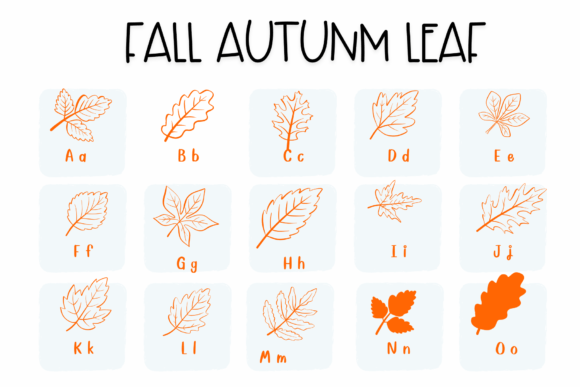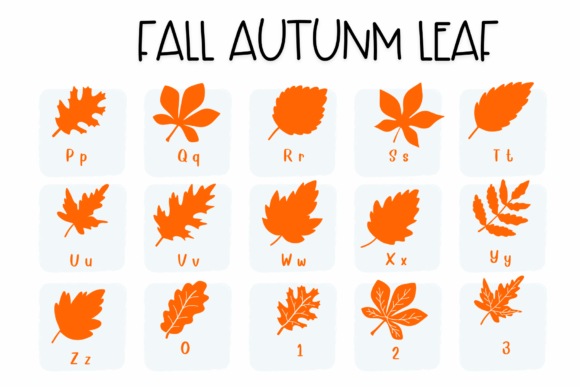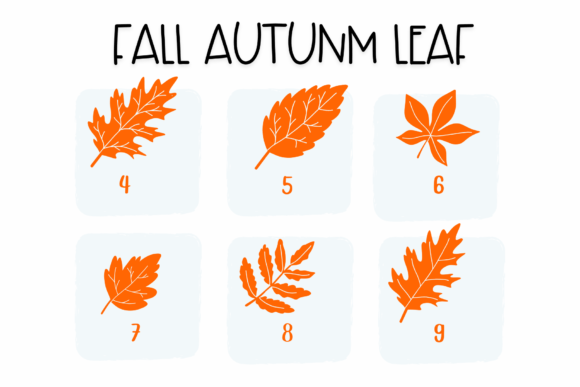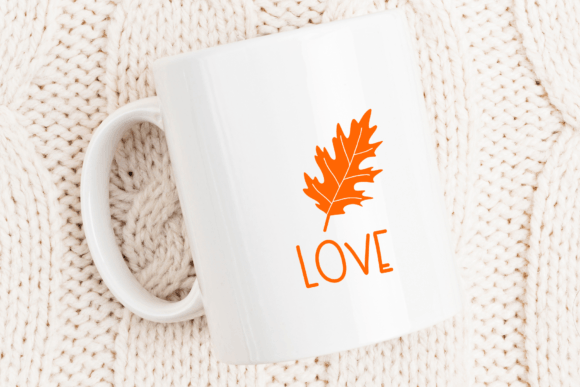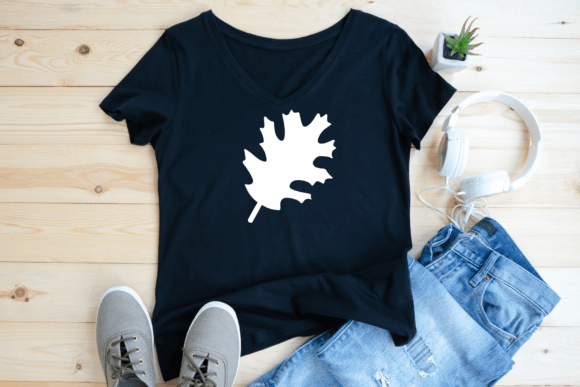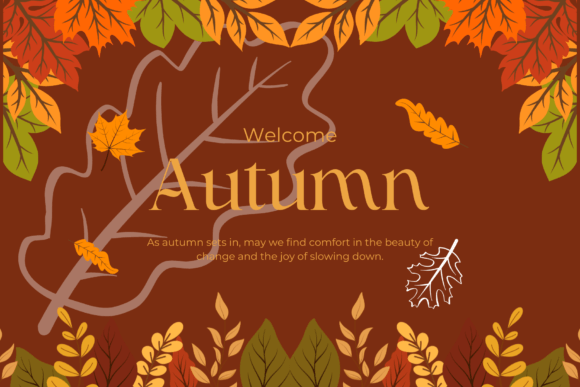
Introduction to Fall Autumn Leaf Font
As a designer, there’s nothing quite like the feeling of hitting a creative wall, only to be inspired by the simplest things around us. For me, it was a walk through the park on a crisp autumn morning that sparked the idea for this article – showcasing the beauty of the Fall Autumn Leaf Font.
Imagine being able to add a high-quality, seasonal touch to your designs without sacrificing the integrity of your work. That’s exactly what the Fall Autumn Leaf Font offers – a unique design resource that’s perfect for any creative project. With its transparent background and free download option, this font is a game-changer for designers looking to add a little extra magic to their work.
Whether you’re working on a branding project, a holiday card, or simply want to add some autumnal flair to your social media graphics, the Fall Autumn Leaf Font is an invaluable tool in your design arsenal.
Key Features of Fall Autumn Leaf Font
- High-quality design resource perfect for a creative project
- Unique, hand-drawn style featuring intricate leaf details
- Transparent background option for easy layering and customization
- Includes a wide range of characters, including uppercase and lowercase letters, numbers, and punctuation
Honest Review: Fall Autumn Leaf Font
I recently had the chance to work with the Fall Autumn Leaf Font, and I must say it’s a great addition to any design project. The font is high quality and perfect for creating a cozy and inviting atmosphere.
One of the things that stands out about this font is its versatility. It can be used for a wide range of creative projects, from graphic design to digital art. The transparent background is also a nice touch, making it easy to work with in various design contexts.
Here are some of the things that work well with this font:
- High quality design that’s perfect for creating a warm and inviting atmosphere
- Perfect for creative projects, including graphic design, digital art, and more
- Transparent background makes it easy to work with in various design contexts
- Some users may find the font a bit too simplistic
- Not as wide a range of characters as some other fonts
Overall, I’m impressed with the Fall Autumn Leaf Font. It’s a great design resource that’s perfect for anyone looking to add a touch of autumnal charm to their work.
Use the Fall Autumn Leaf Font in high-quality designs, such as brochures, posters, and social media graphics. Combine it with other design resources, like vectors and illustrations, to create a unique and creative project. Experiment with different font sizes and styles to achieve a balanced and visually appealing design.
The Fall Autumn Leaf Font is perfect for seasonal designs, such as Halloween and Thanksgiving-themed projects. It can also be used in outdoor and nature-inspired designs, like park maps and wildlife conservation materials. With its free download and transparent background, this font is a valuable design resource for any creative project.
Yes, the Fall Autumn Leaf Font has a transparent background, making it easy to use in designs with complex backgrounds or layered compositions. This feature allows designers to create unique and eye-catching designs that really stand out.
What is the recommended font size for the Fall Autumn Leaf Font?
The recommended font size for the Fall Autumn Leaf Font is between 12-24 points, depending on the intended use and design context. However, feel free to experiment with different font sizes to achieve the desired effect for your creative project.